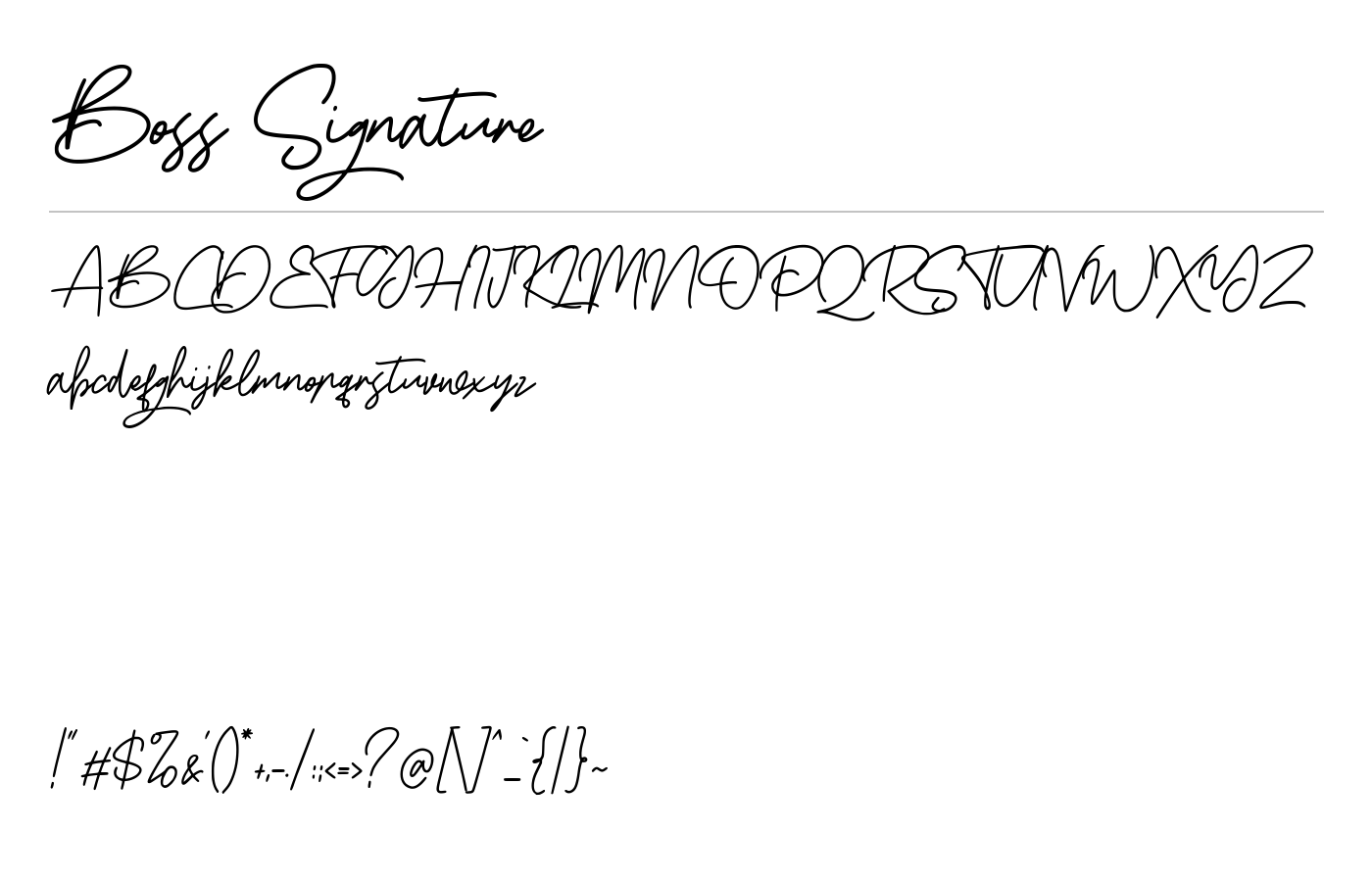
Boss Signature Font is a stylish and delicate script font that mimics natural, elegant handwriting with fluid strokes and a refined, airy feel. Its light weight and graceful curves make it perfect for luxury branding, wedding invitations, and personal logos, bringing a sophisticated yet approachable personality to any design. This font captures a modern, artistic flair ideal for projects that want to communicate creativity and elegance.
Boss Signature Font
About Boss Signature Font